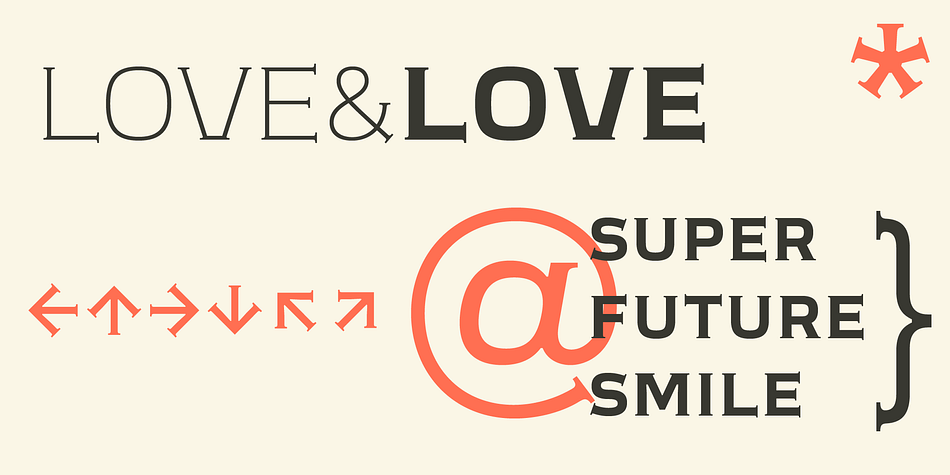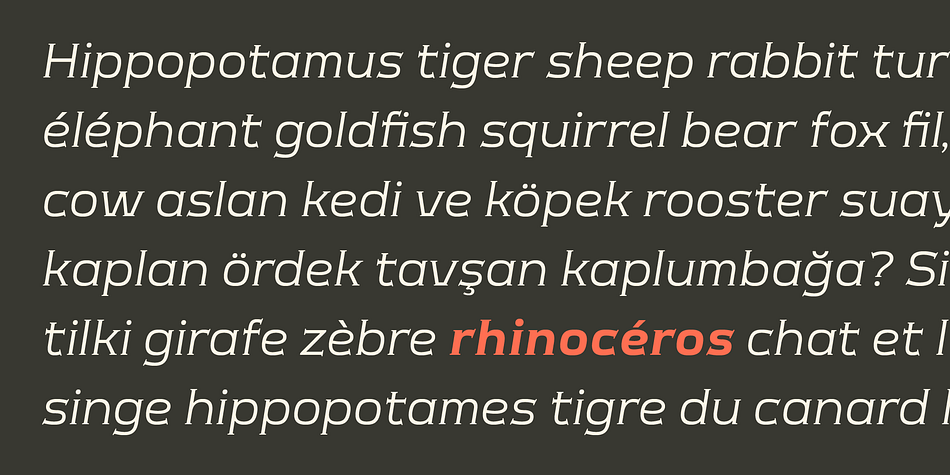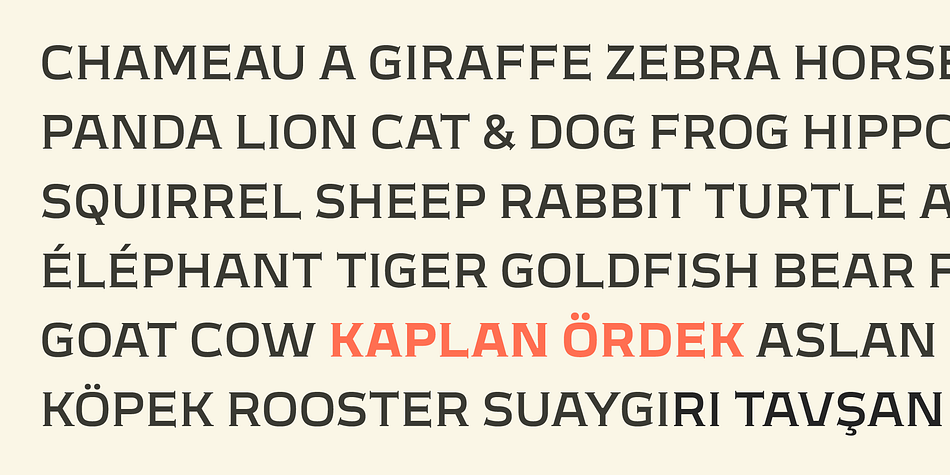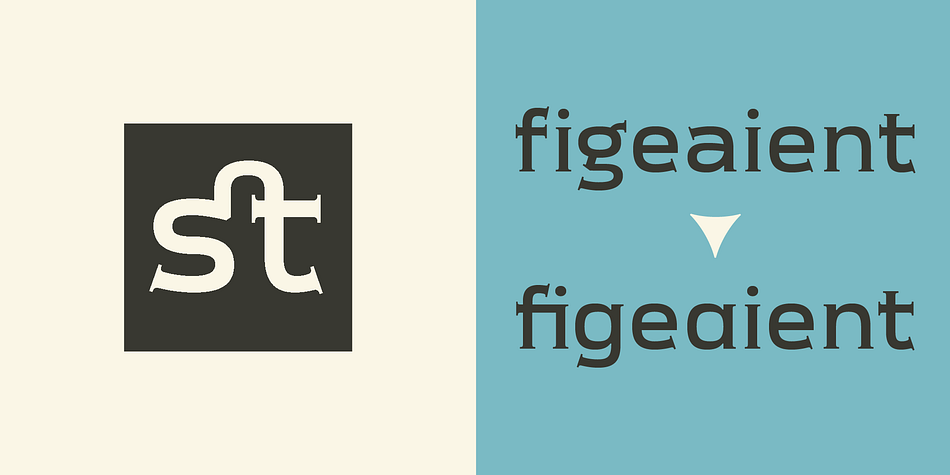
Meguro Serif
Designed by Takaaki Goto, Meguro Serif is a serif font family. This typeface has ten styles and was published by GT&CANARY.
Potent, clean and classy. Meguro serif has a modern-styled boxy shape with small glyphic serifs emphasizing the edge of its vertical and horizontal strokes.
Inspired by iconic fonts of the 1900s, Meguro serif incorporates the sophistication of the digital age to strike its own unique character. Its mono-line oriented, pointy serifs and very high X-height ensure that it is extremely legible and creates a strong impression.
The Meguro serif font family is comprised of 10 styles with 5 different weights from light to black, along with matching italics offering possibilities for use in web, print, package and sign design, all with the goal of building an established look for brands in wide range of industries.